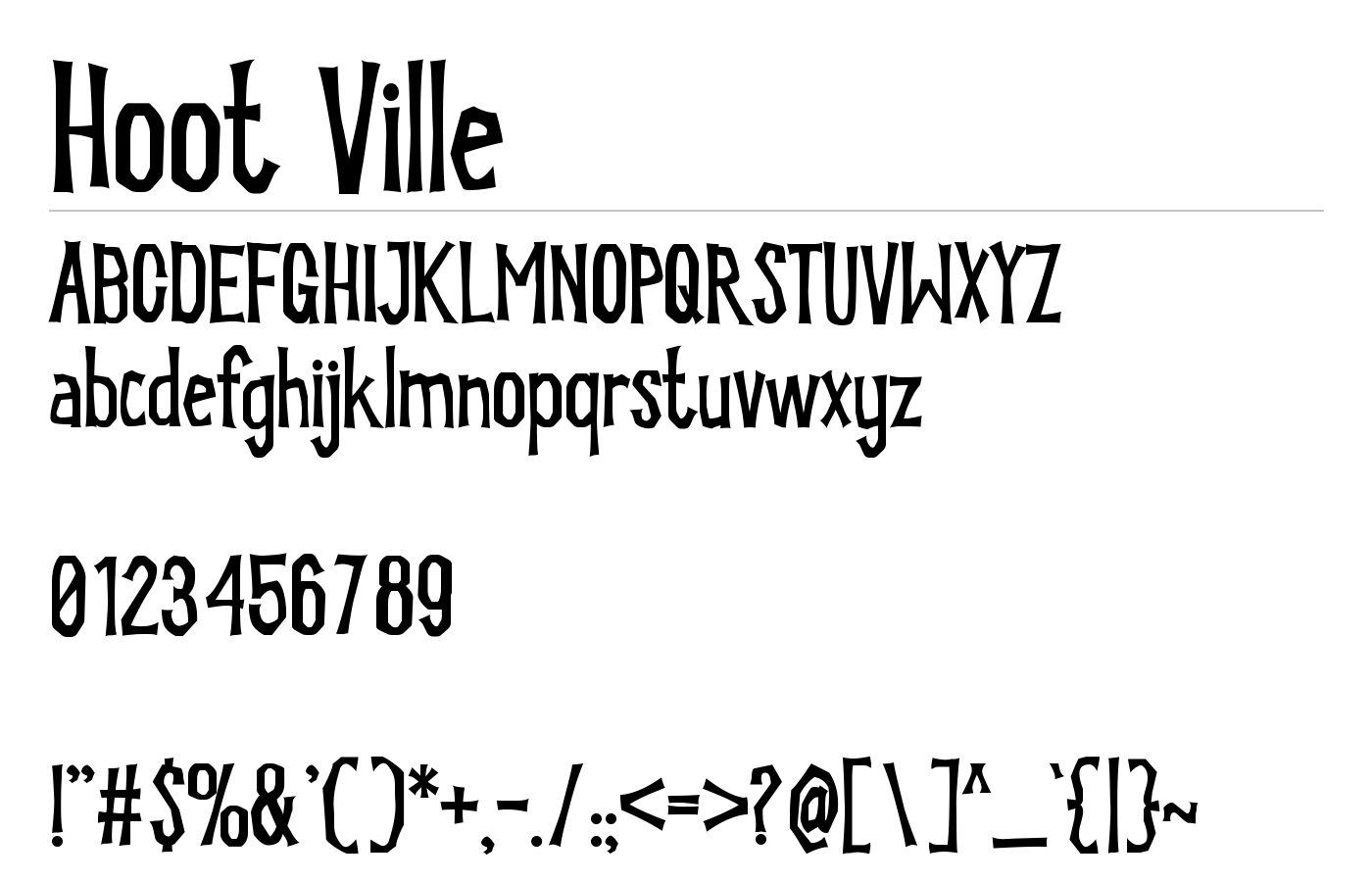
Hoot Ville is a quirky, narrow sans serif font with a playful, hand-drawn feel that combines tall, irregular letterforms with sharp, angular strokes. Its condensed width and uneven shapes give it a unique, slightly spooky personality, making it ideal for creative headlines, posters, or branding that seeks a fun yet offbeat vibe. This font works best for eye-catching, informal designs rather than long text, adding character and charm wherever used.
Hoot Ville Font
About Hoot Ville Font
| Designer | TOKOPRESS Team |